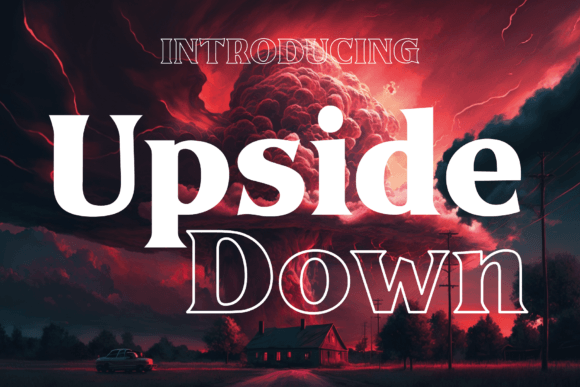
Are you tired of using the same old fonts that fail to capture the attention of your audience? Introducing Upside Down Font, a game-changing typeface that will revolutionize your designs. Developed by HipFonts, this dramatic serif font is a show-stopper that commands attention and ignites curiosity.
With its sharp angles and bold curves, Upside Down Font is the perfect way to elevate your designs and take them to new heights. Its versatility allows it to be used in a variety of projects, from posters and flyers to headlines and social media graphics. Whatever your project may be, Upside Down Font is sure to leave a lasting impression.
But Upside Down Font is more than just a font. It's a tool that allows you to unleash your creativity and explore new possibilities. Its daring and adventurous design makes it perfect for those looking to break free from the status quo and create something truly unique.